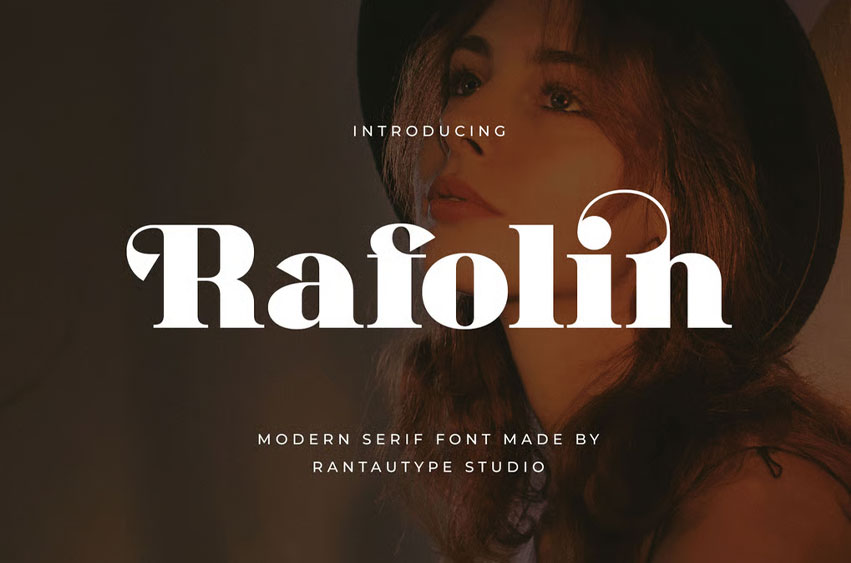
Rafolin Font
Rafolin Font modern serif font, embraces grace and boldness. Rafolin is a perfect choice for any creative endeavor, chic lifestyle design such as logotype, advertisements, watermark on photography, stationery, branding project, display and magazine, invitation, corporate brand, product design, label, business project, and many other projects with a retro touch.